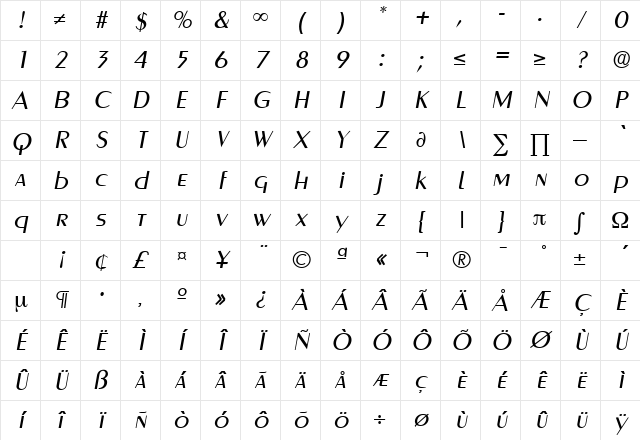
Greyhound RegularItalic
Style: RegularItalic
Greyhound Family
Complete Greyhound RegularItalic glyph index. Displaying only characters natively supported by Greyhound RegularItalic font.
Design Context for Greyhound
Greyhound is a composed and adaptable typeface that performs quietly and consistently across a wide range of design contexts. The slanted form adds forward momentum and visual energy.